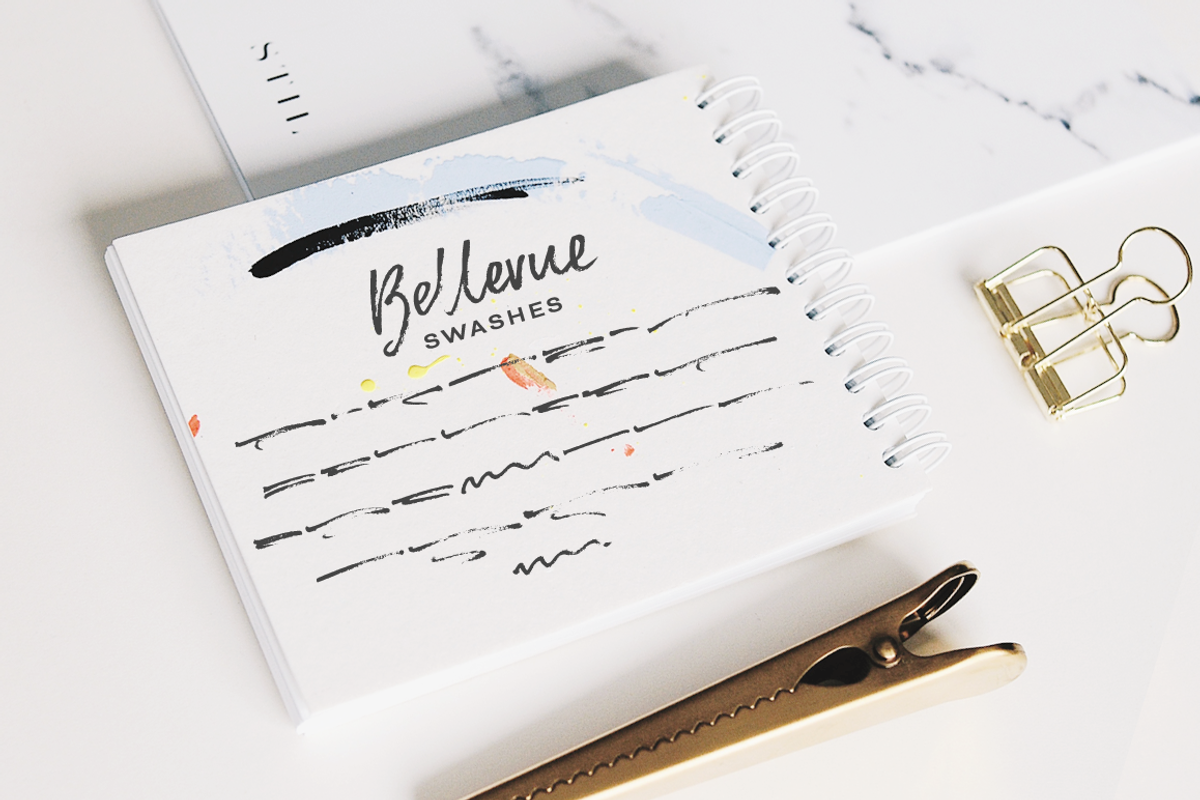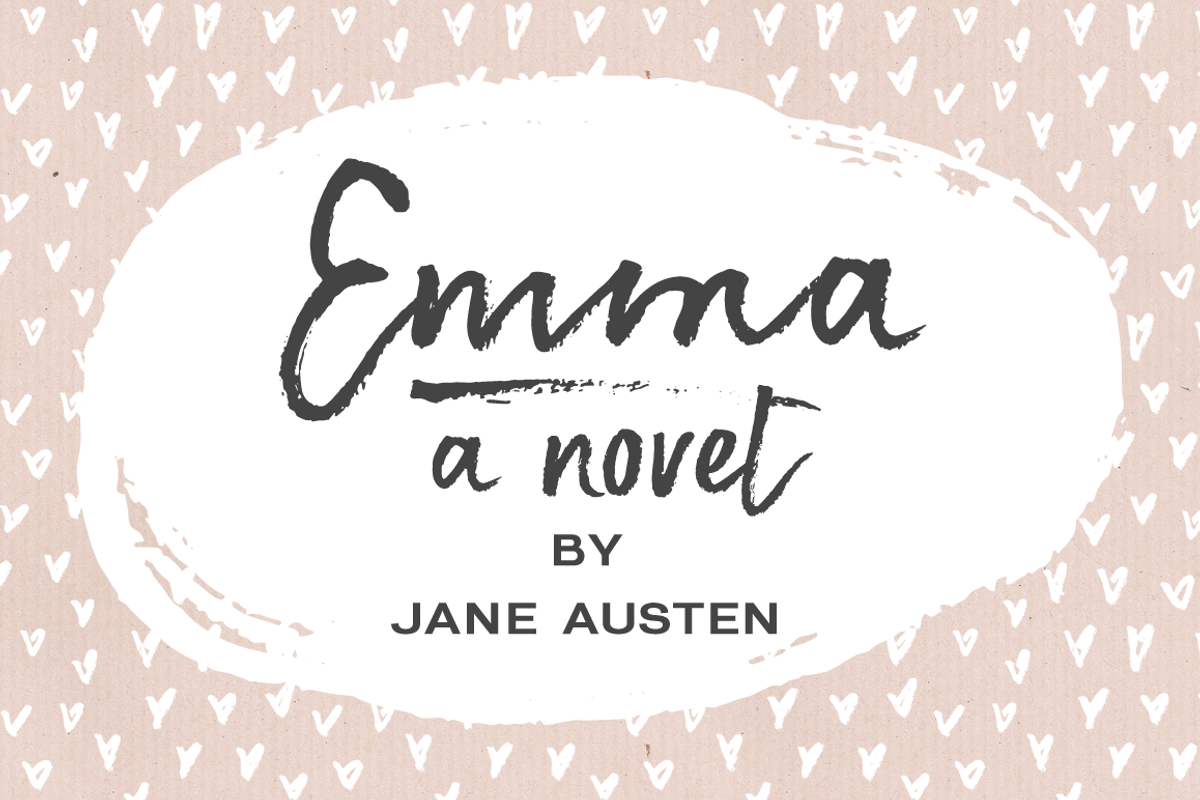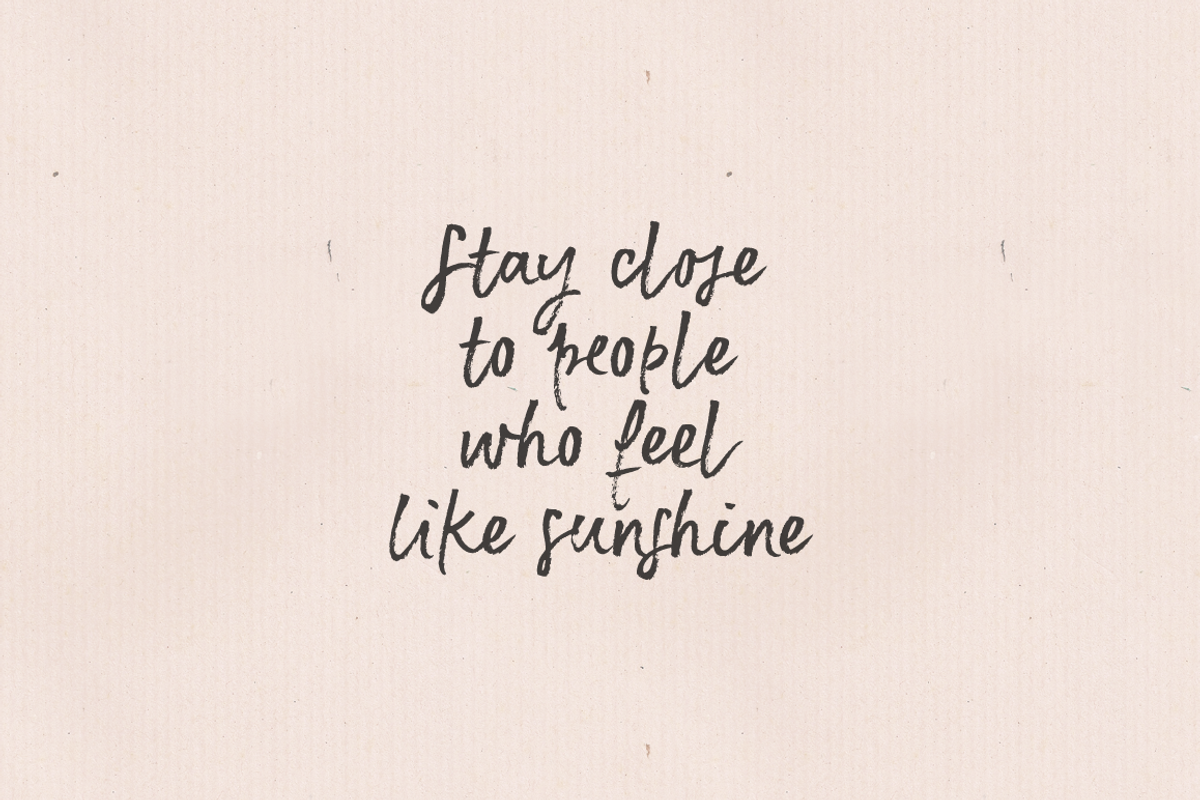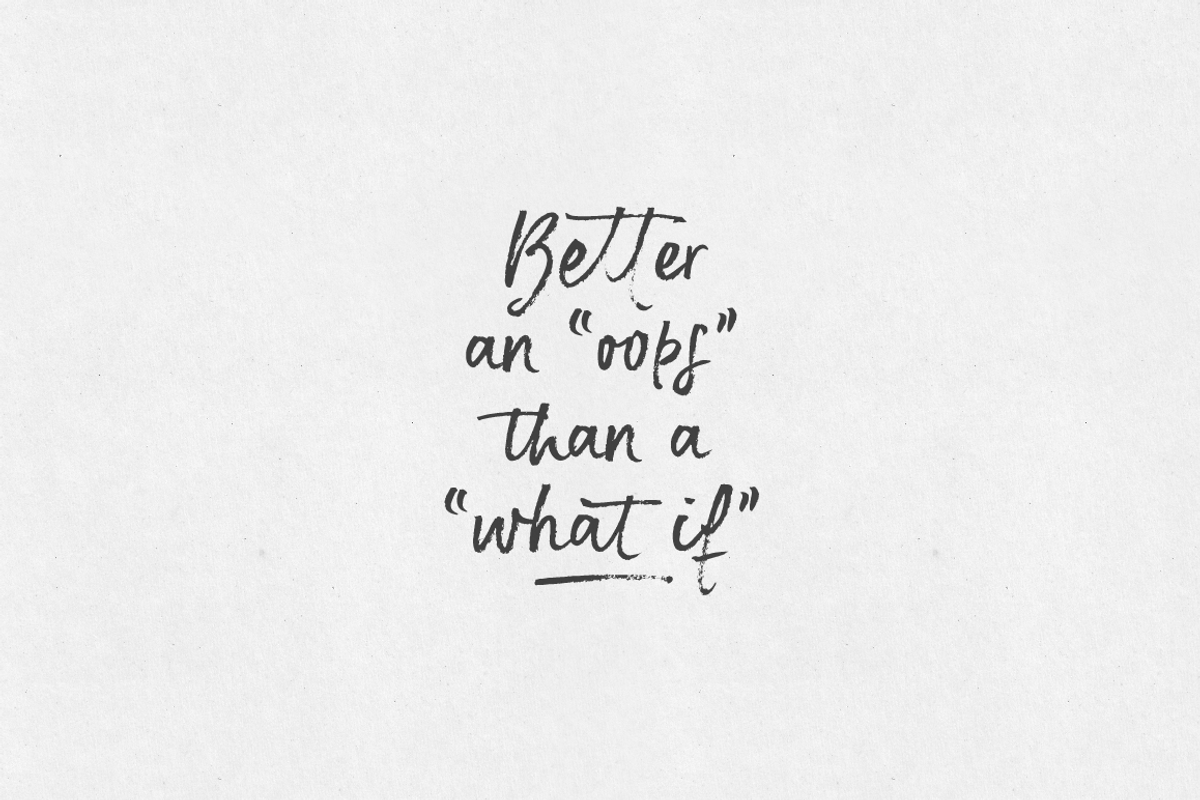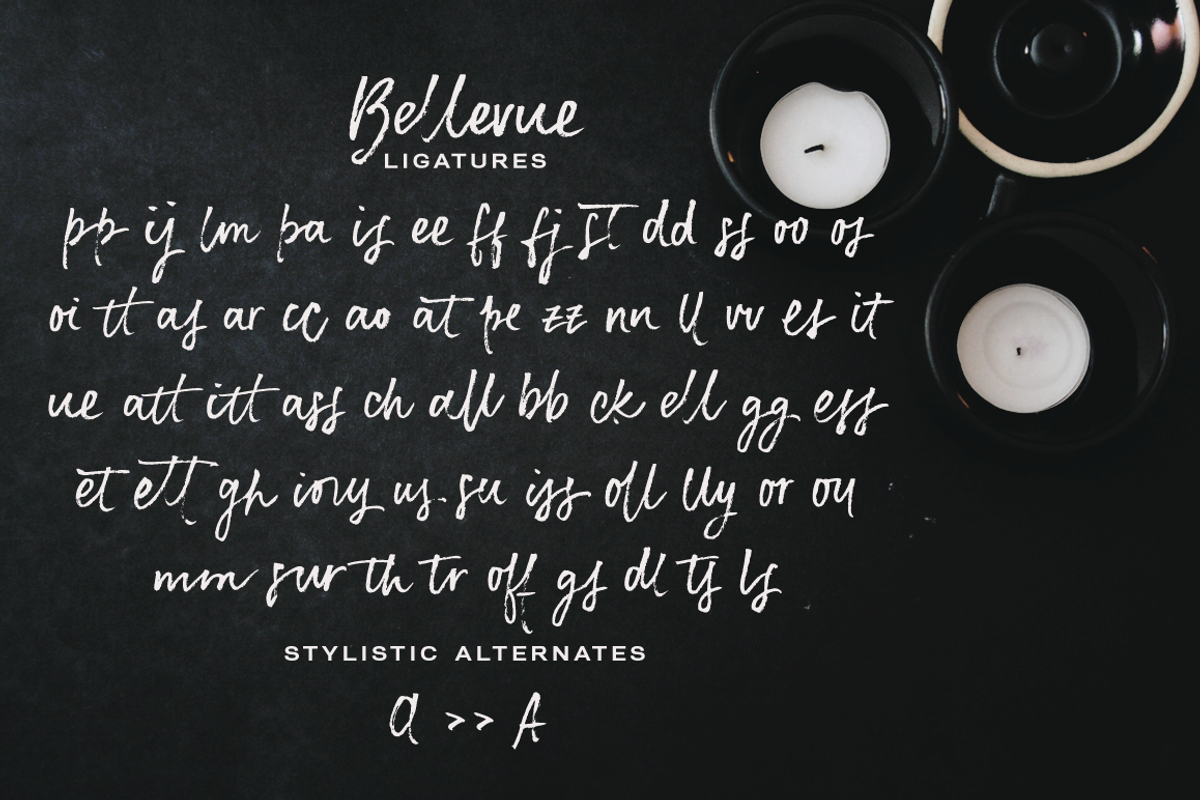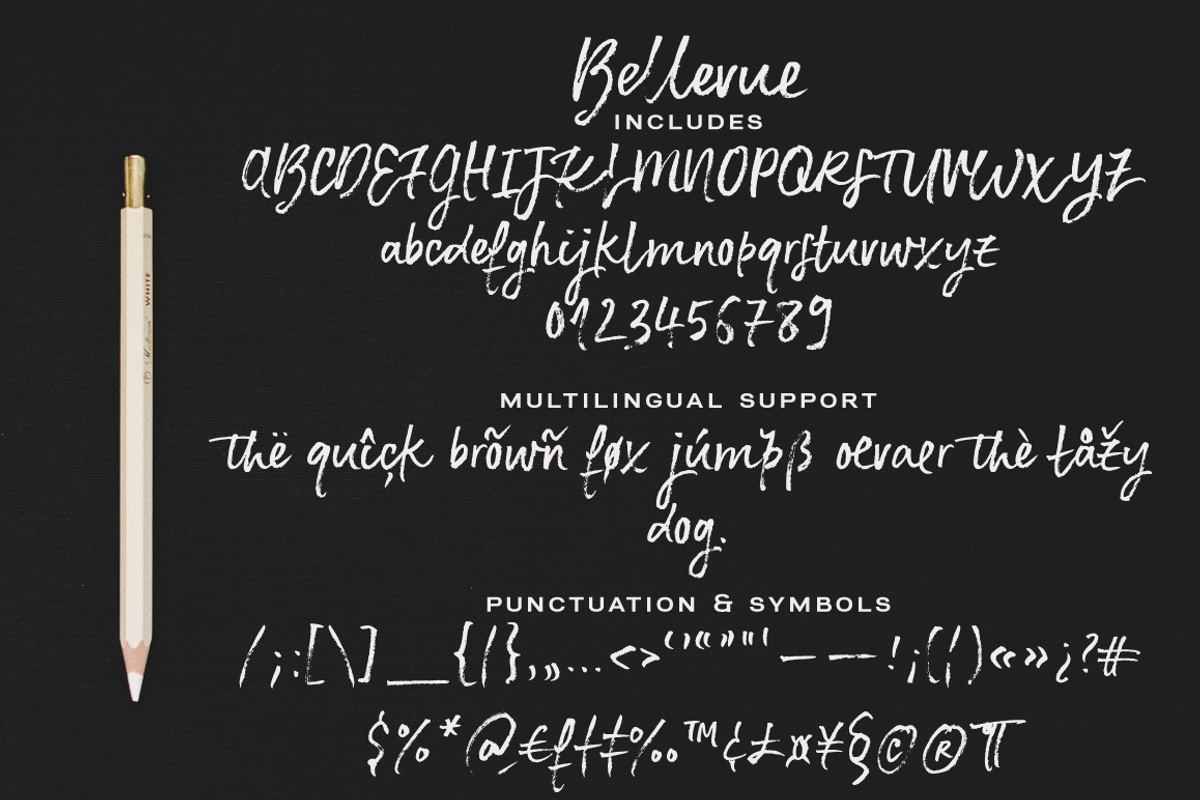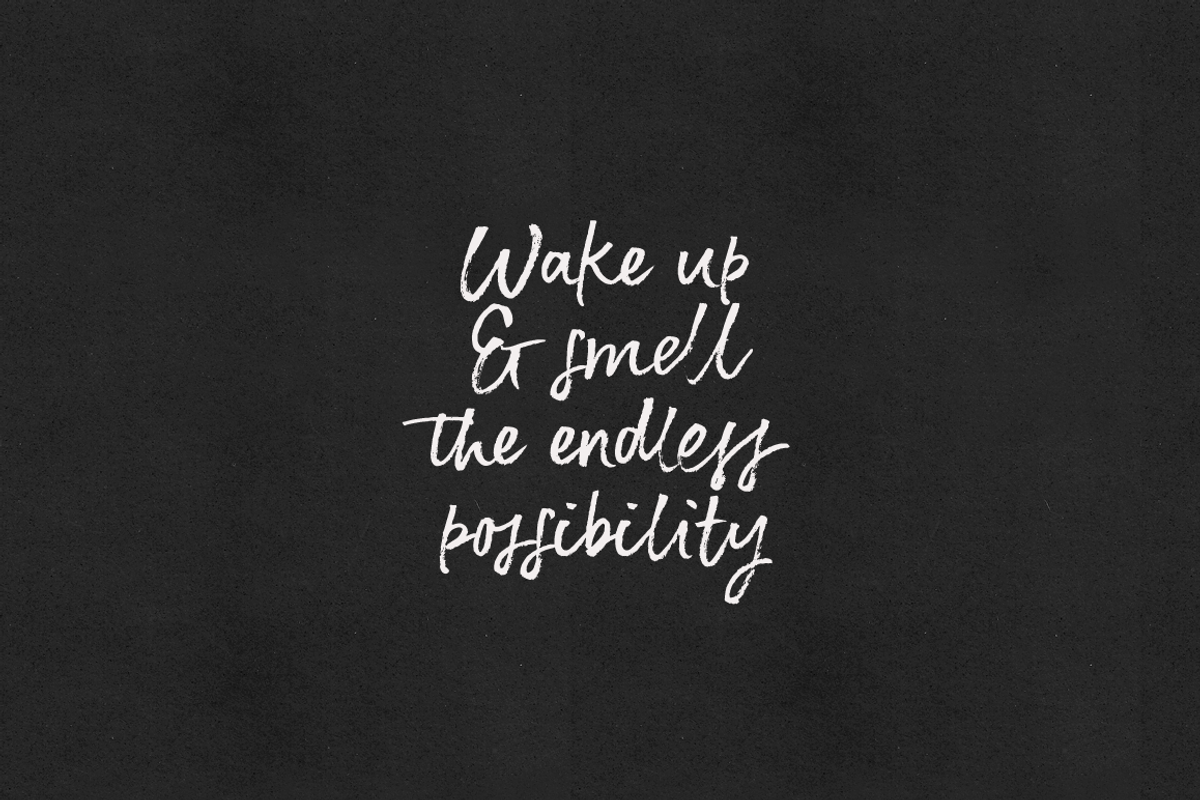
Bellevue brush font and textures
Bellevue is a textured brush font with rough edges and dozens of ligatures that give it a true handwritten feel. It includes a regular and slanted version of the font, with bonus goodies like: swashes, frames, and seamless patterns and textures. All so easy to combine in eye-catching designs.
This hand-lettered font includes:
A-Z, a-z, 0-9, accents, punctuation and symbols
Tons of ligatures, for a more natural handlettered feel
Contextual ("b" and "p") and Stylistic Alternates ("A")
An extra set of 26 swashes (a-z) and 10 frames (0-9)
A bonus slanted version, for a more dramatic look
Bellevue is perfect to make a statement and will look great in quotes, logos, titles, postcards, tags.